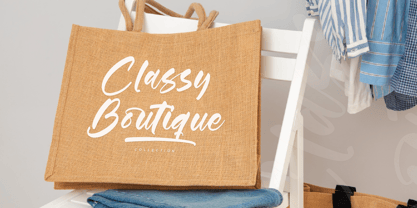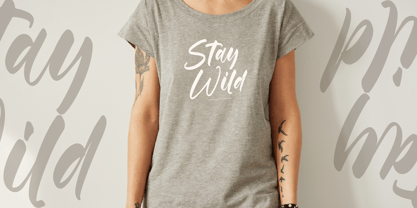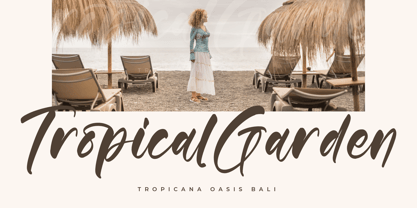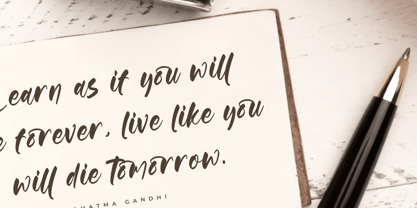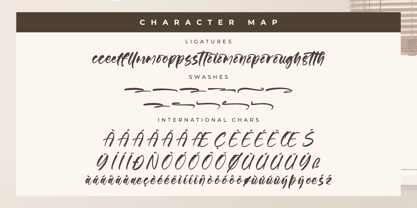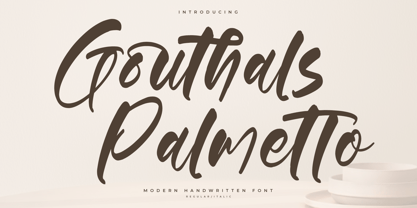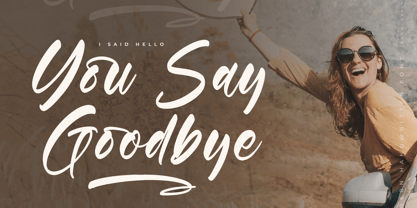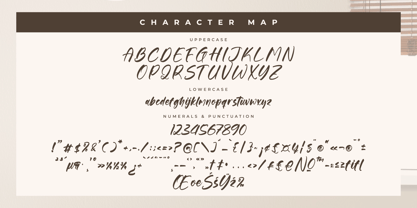
Gouthals Palmetto
The Gouthals Palmetto Font Family was designed by Heru Utama Putra and published by Letterena Studios. Gouthals Palmetto contains 2 styles and family package options. More about this family
• Gouthals Palmetto Regular
• Gouthals Palmetto Italic
Gouthals Palmetto – Modern Handwritten Font , from Letterena, is a Luxury Script font, suitable for any projects such as: logos, branding projects, homeware designs, product packaging, mugs, quotes, posters, shopping bags, t-shirts, book covers, name card, invitation cards, greeting cards, label, photography, watermark, special events, and all your other luxury and beautiful projects that need a Luxury serif taste.